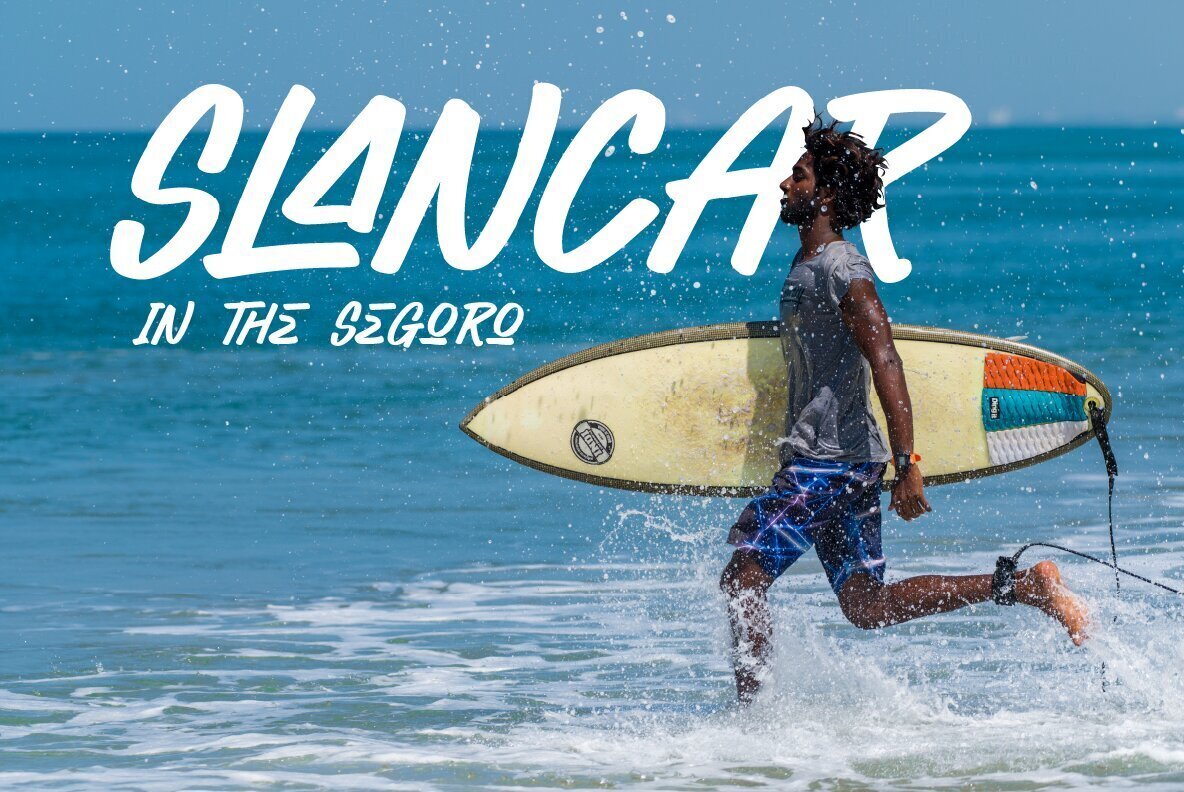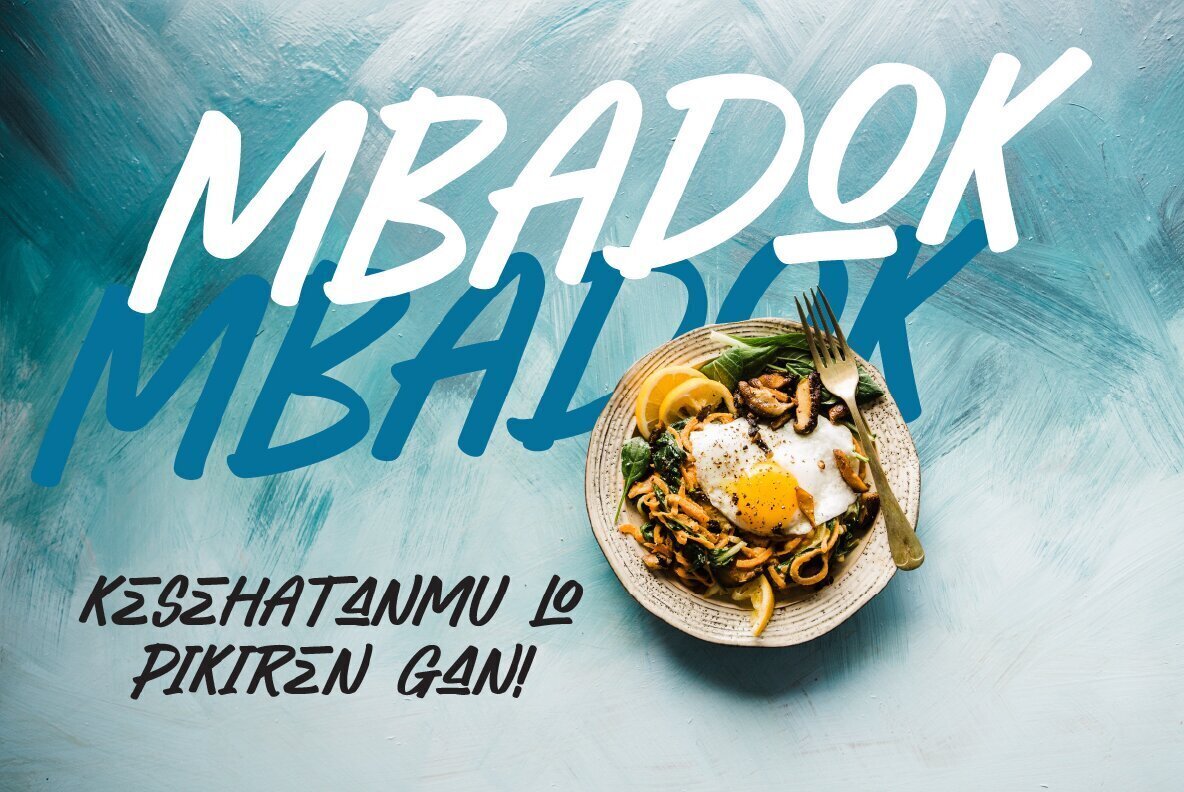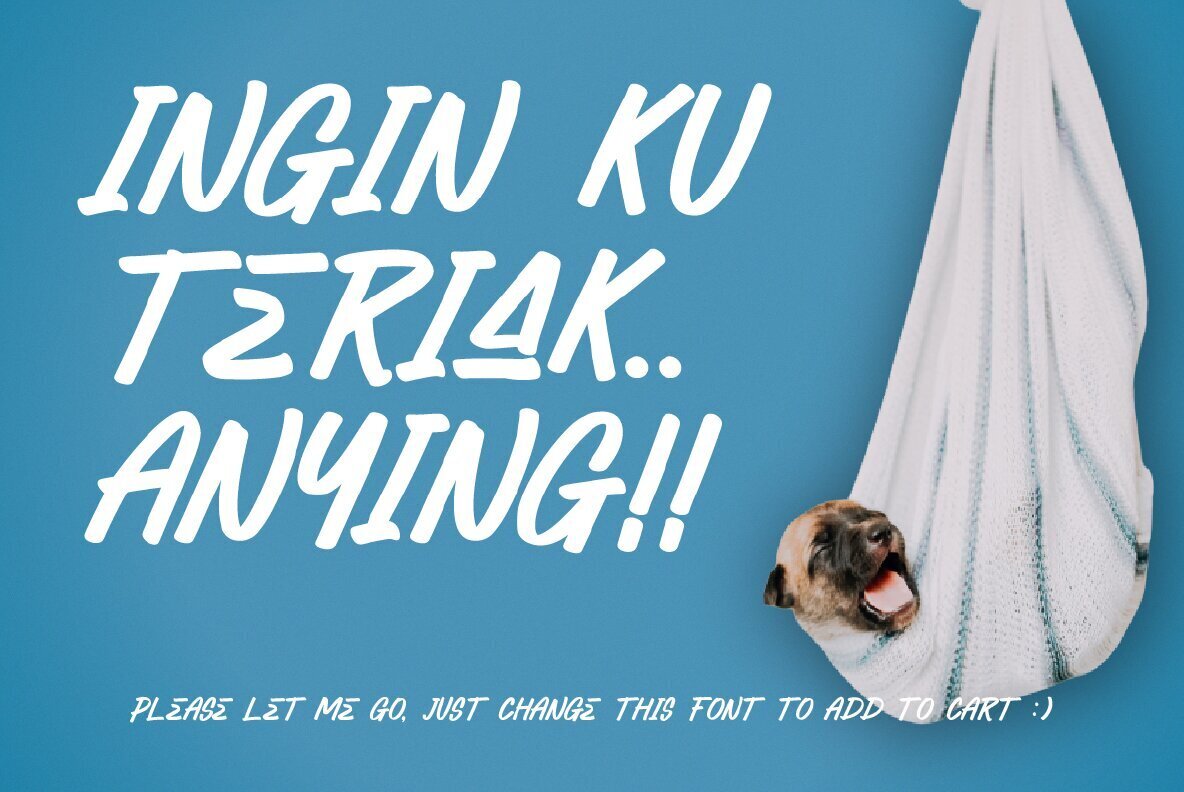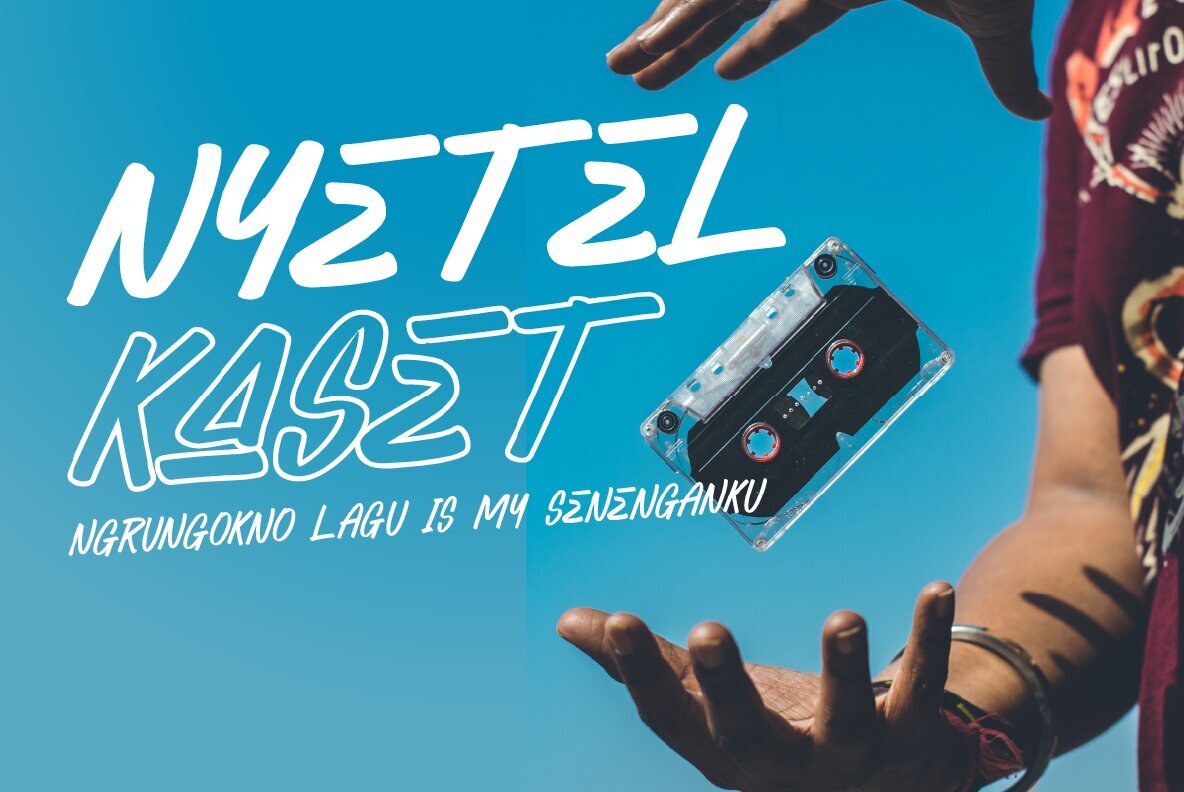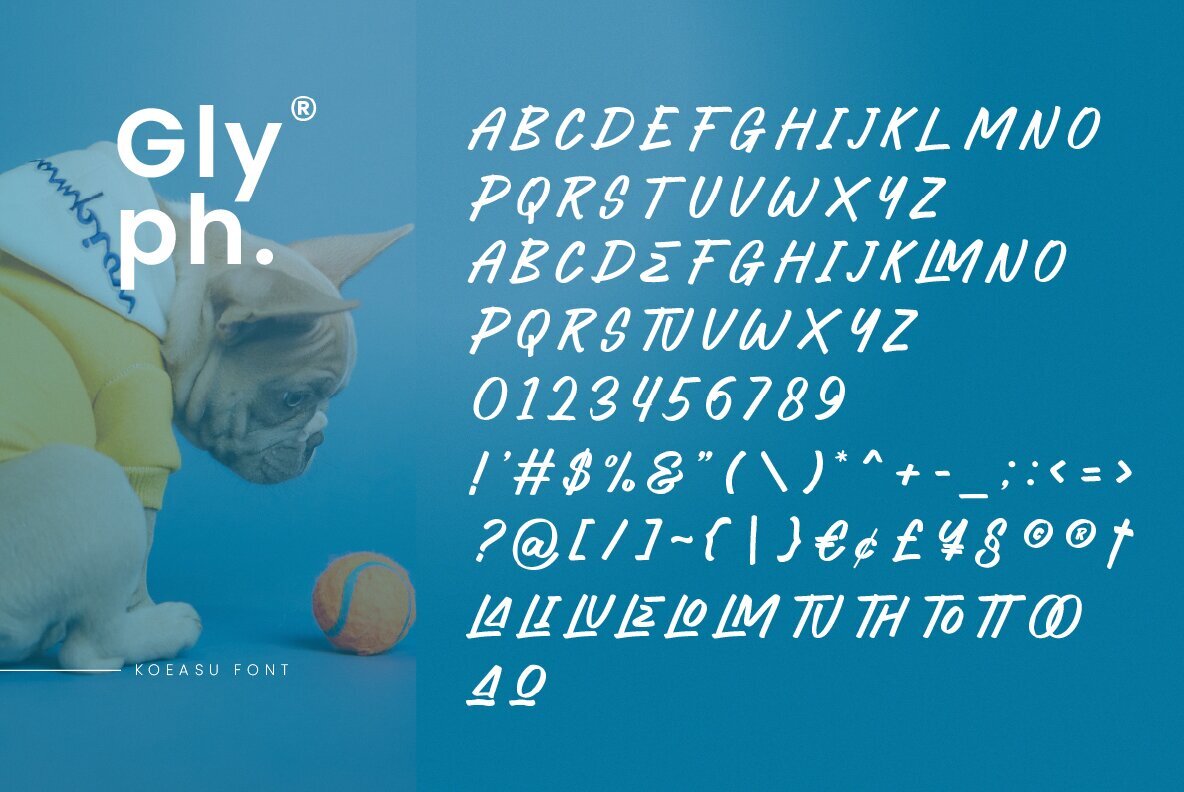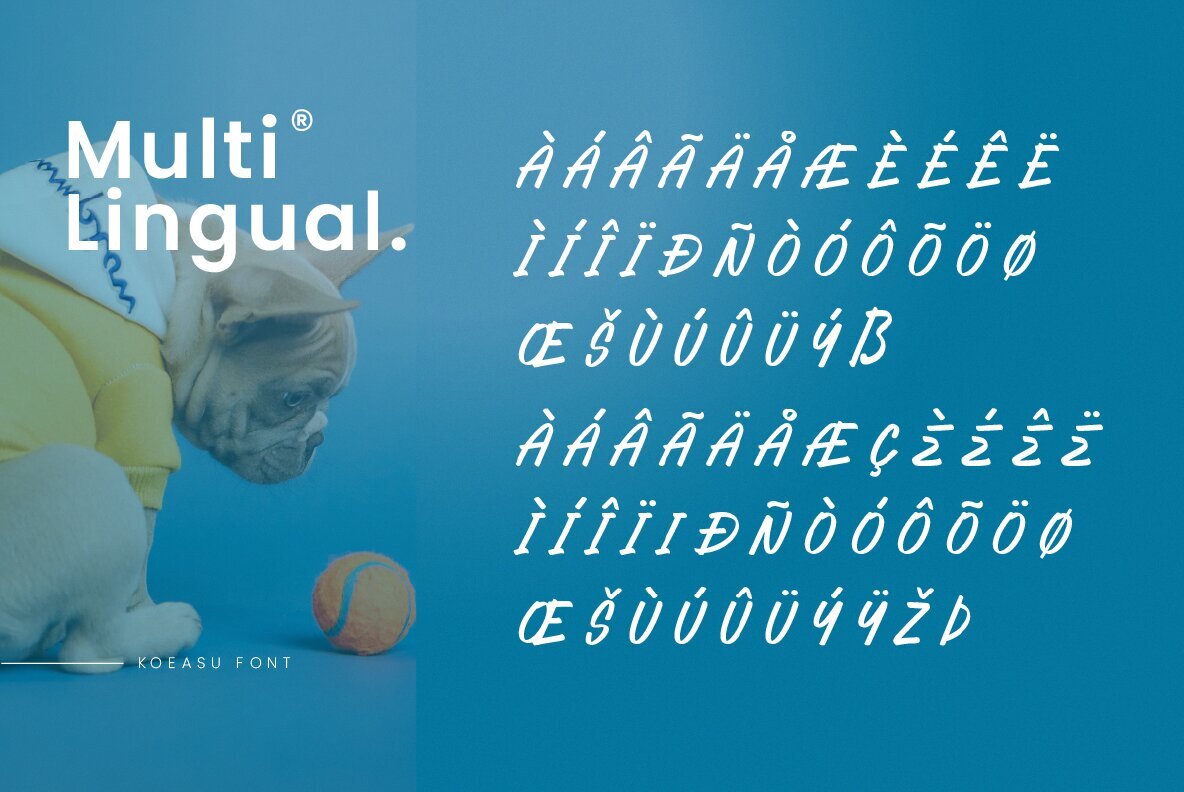
Koeasu Font
The typeface is an emotional and fun handwritten font that will make you want to use it for everything! Koeasu looks great as a stylish text overlay on any background image.
Font Features:
- All Caps
- Numbers & Punctuation